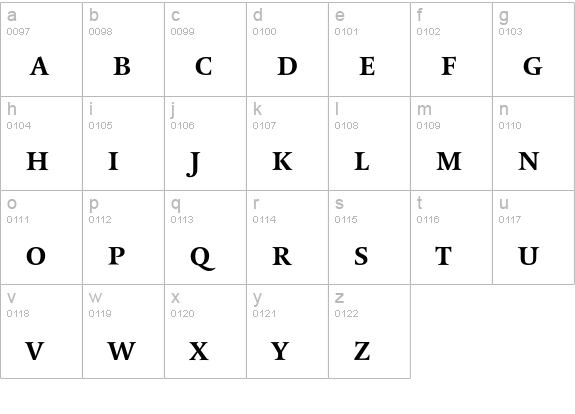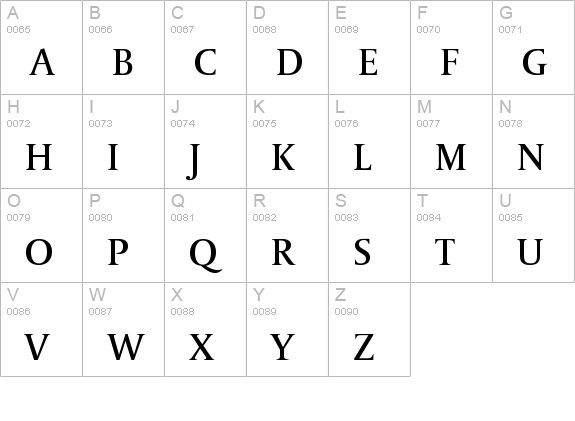
DTLParadoxTCaps-Medium Font Details
DTLParadoxTCaps-Medium is a balanced, medium-weight variant in the DTLParadoxTCaps typeface family \xE2\x80\x94 well suited to sub-headlines, navigation, and balanced editorial work.
The DTLParadoxTCaps-Medium font is a versatile and elegant typeface that exudes sophistication and modernity. Its sleek and clean design makes it perfect for a wide range of design projects, from branding to editorial layouts. The medium weight of the font strikes the perfect balance between boldness and subtlety, making it suitable for both headers and body text. One of the best features of the DTLParadoxTCaps-Medium font is that it is available for free download at FontsMarket.com. This means that you can easily access this high-quality font without having to worry about any costs. Whether you're a professional designer or a hobbyist looking to elevate your projects, this font is a fantastic addition to your toolkit. The DTLParadoxTCaps-Medium font offers a timeless and classic aesthetic that will never go out of style. Its crisp lines and geometric shapes give it a contemporary edge while still maintaining a sense of traditional elegance. With its extensive character set and language support, this font is perfect for creating impactful and engaging designs across various platforms. Overall, the DTLParadoxTCaps-Medium font is a must-have for anyone looking to add a touch of sophistication and style to their projects. Download it for free at FontsMarket.com and elevate your designs with this stunning typeface today.